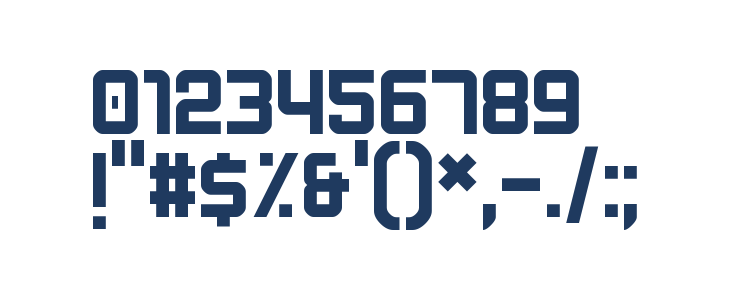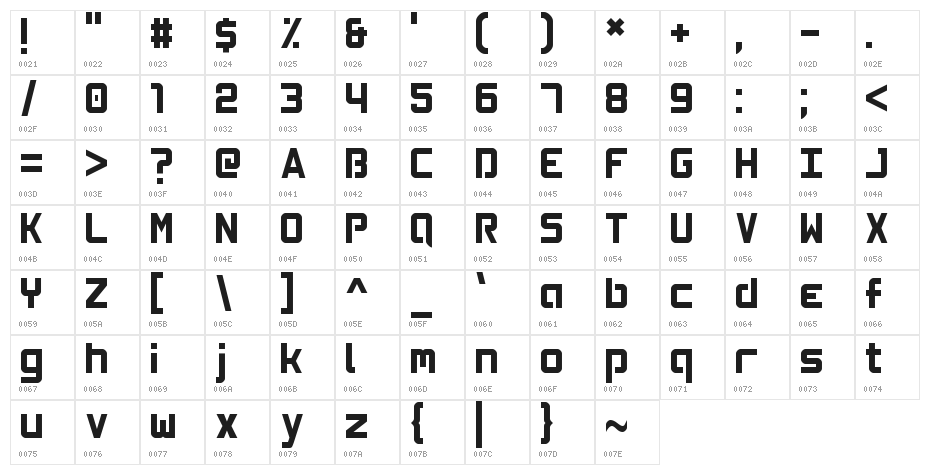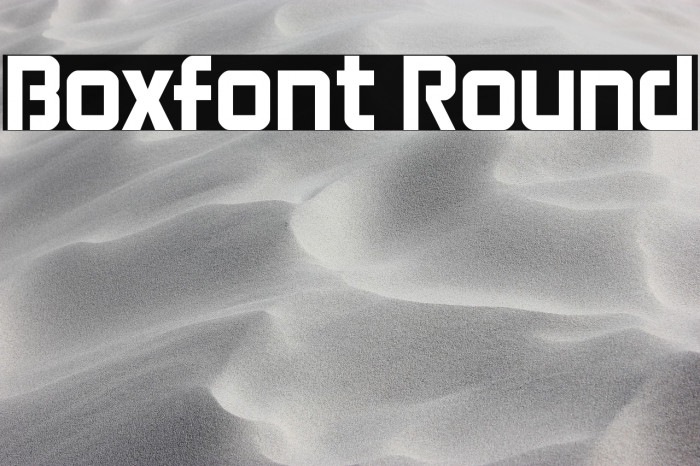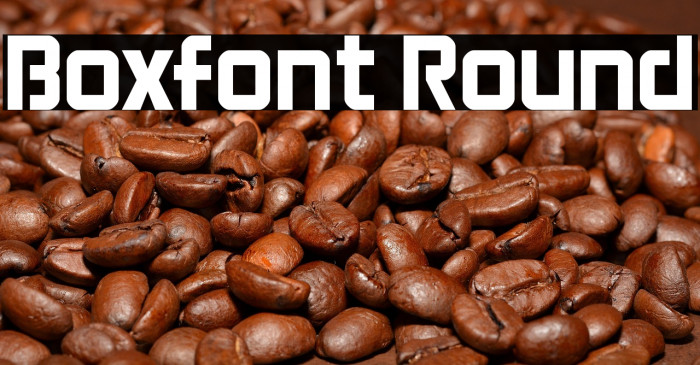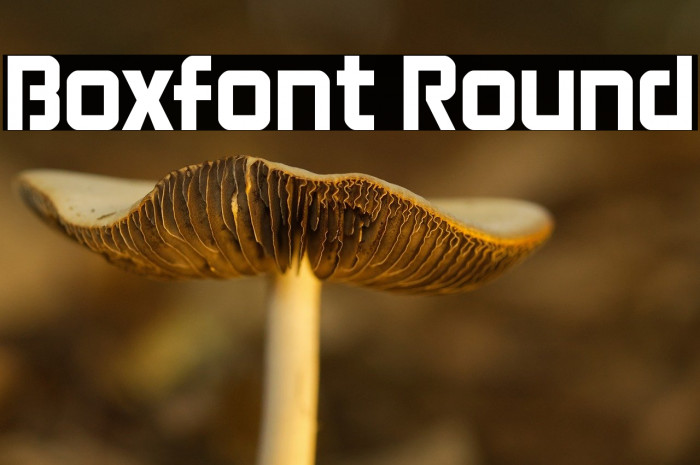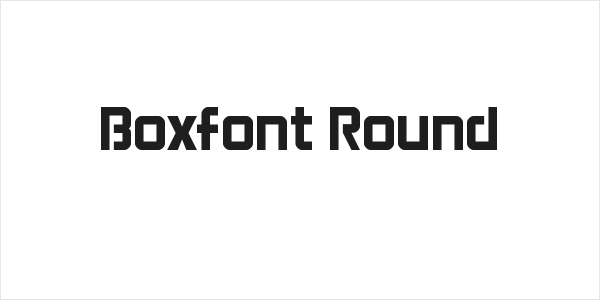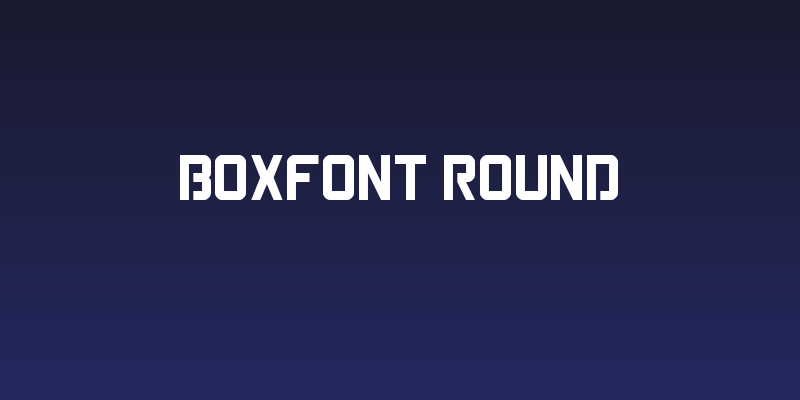
Boxfont Round Font
Boxfont Round Description
This font features a bold, geometric style with a strong emphasis on angular shapes and rounded edges. The characters are uniformly thick, creating a cohesive and modern appearance. The uppercase and lowercase letters maintain a consistent height, contributing to a clean and structured look. Numbers and special characters follow the same design principles, ensuring a harmonious overall aesthetic. The font's design is reminiscent of digital or futuristic themes, making it suitable for tech-related projects or modern branding.